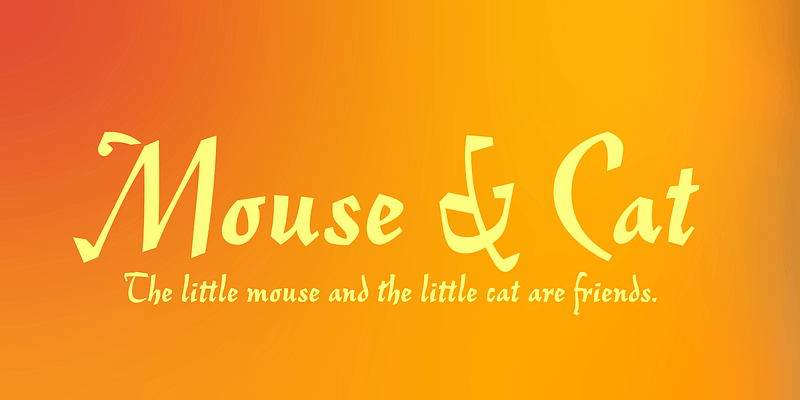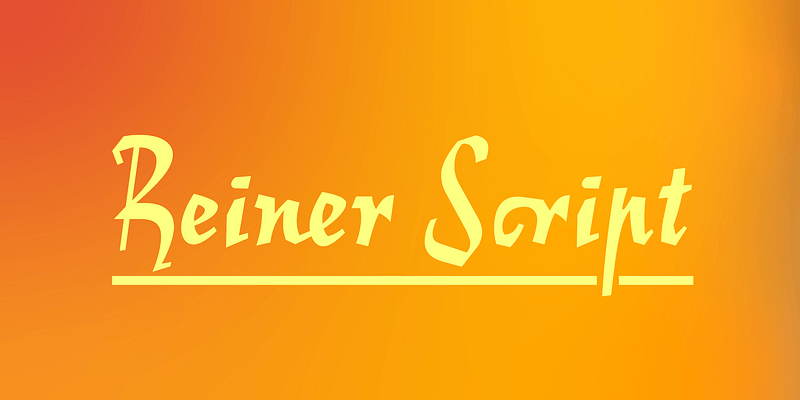
Loose and angular, this typeface was originally designed by Imre Reiner for the Amsterdam Typefoundry in 1951. Attracted by its free-form structure and unique texture, Tobias Frere-Jones revived the original design from handset proofs in 1993 and designed a new boldface to accompany it. Following Reiner’s personal style of calligraphy, over twenty ligatures were added to each weight for flexibility and variety in headlines.